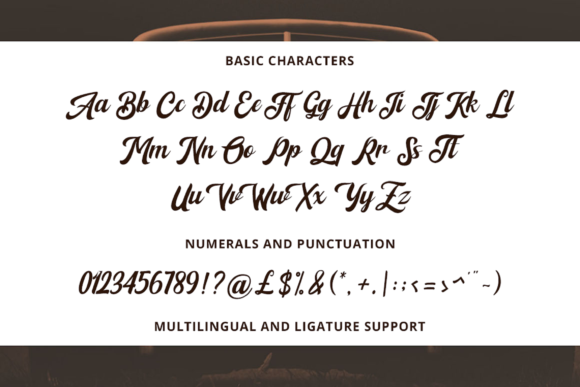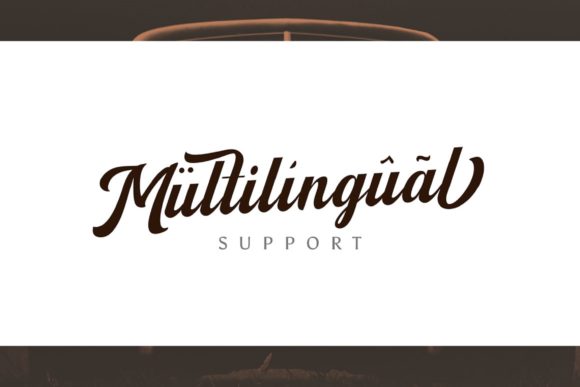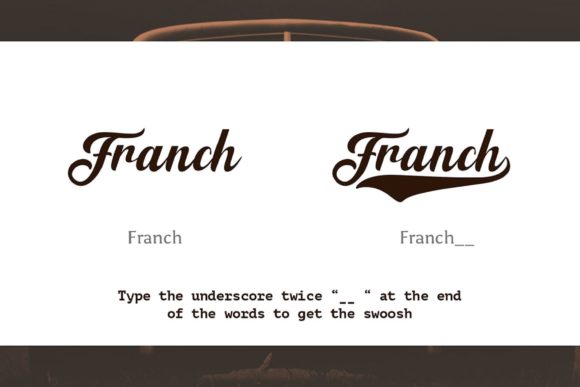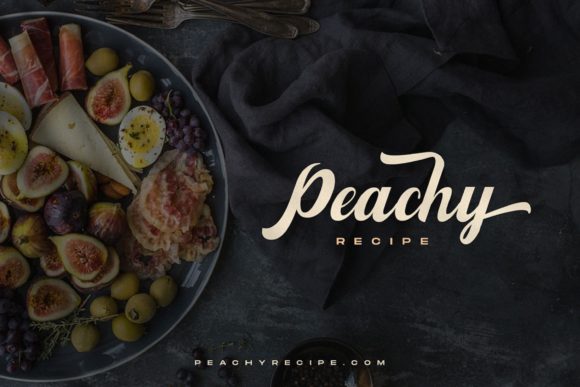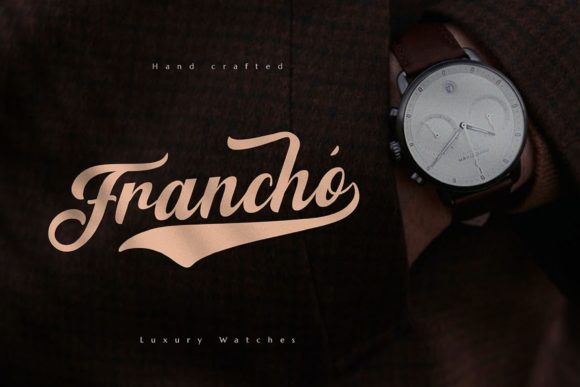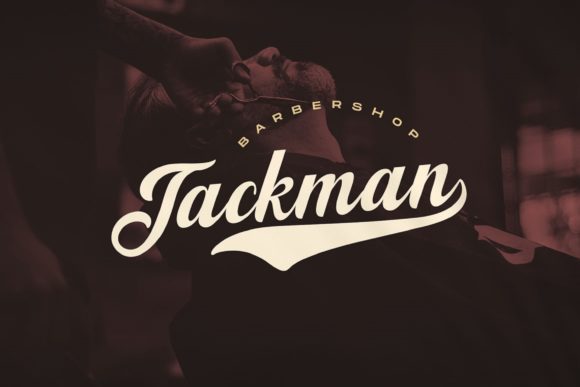
Unleash Your Creativity with the Timeless Charm of Fenway Font
Do you remember the moment when you stumbled upon the perfect font, and your design just came alive? It’s that instant rush of inspiration, the spark that sets your imagination ablaze. For designers, finding the right font can be a game-changer, and that’s exactly what the Fenway Font offers.
This beautiful, handwritten font is a masterclass in vintage charm, with its flowing lines and soft curves evoking a bygone era. With the Fenway Font, you can create stunning designs that transport your audience to a different time and place. Whether you’re designing a wedding invitation, a brand logo, or a social media graphic, this font is sure to add a touch of sophistication and elegance.
Fenway Font Key Features
- Font Family: Fenway Font is a custom-designed font, specifically created for the Boston Red Sox.
- Size: Fenway Font comes in a range of sizes, from 12 points to 72 points, catering to various design needs.
- Resolution: Optimized for high-resolution displays, ensuring crisp and clear text at various screen sizes.
- Unique Characteristics: The font features a unique, handwritten style with a mix of cursive and script elements, giving it a distinctive look.
Fenway Font Review
Overall, I think the Fenway Font has some interesting aspects, but it’s not without its limitations. Here are some points to consider:
- Unique character: The Fenway Font has a distinct personality that sets it apart from other fonts. It’s a great choice for designers looking to add some flair to their projects.
- Good for titles: The font’s bold, attention-grabbing style makes it well-suited for titles, headings, and other prominent text.
- Legible at various sizes: Despite its bold appearance, the Fenway Font remains legible even at smaller sizes, making it a versatile choice.
- Limited readability in body text: While the font is great for titles, it can be difficult to read in large blocks of body text. This may not be the best choice for long-form content or articles.
- May not be suitable for small screens: The font’s bold style can make it difficult to read on small screens or in situations where text size is limited.
- Not suitable for all languages: The Fenway Font may not be optimized for languages with non-Latin scripts, which could lead to readability issues.
The Fenway Font is a bold, attention-grabbing font that’s perfect for titles and headings. However, its limitations in readability and suitability for small screens or non-Latin scripts may make it less desirable for some projects. With careful consideration and selection, the Fenway Font can be a great addition to your design arsenal.
The Fenway Font is perfect for:
- Sports-themed designs
- Urban or industrial-inspired designs
- Creating a bold, eye-catching headline
Remember to experiment with different font sizes, colors, and combinations to get the most out of the Fenway Font.